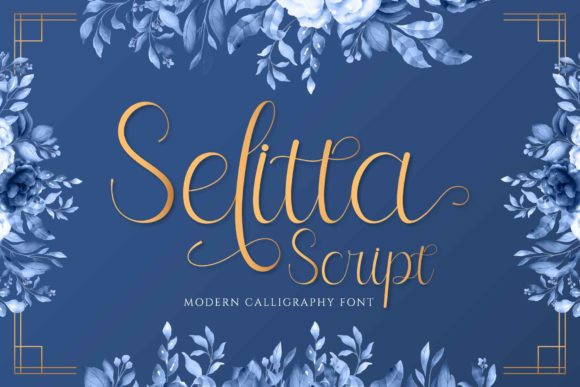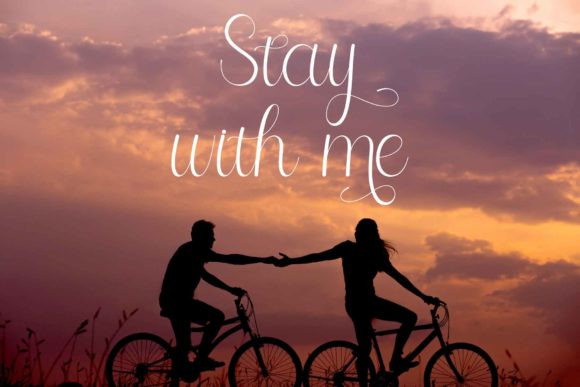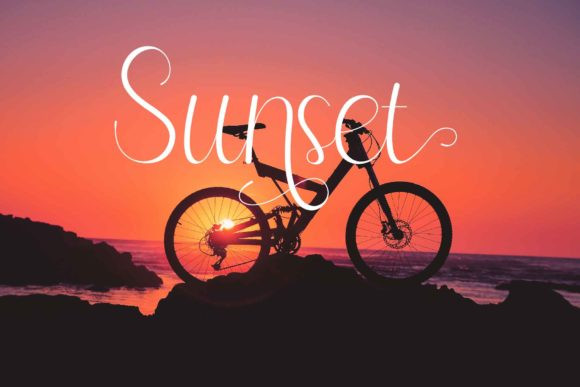
Selitta Font
Selitta FontSelitta is a delicate and elegant handwritten font. Its distinct and well rounded letters make this font a masterpiece. Fall in love with its incredibly versatile style and use it to create spectacular designs!